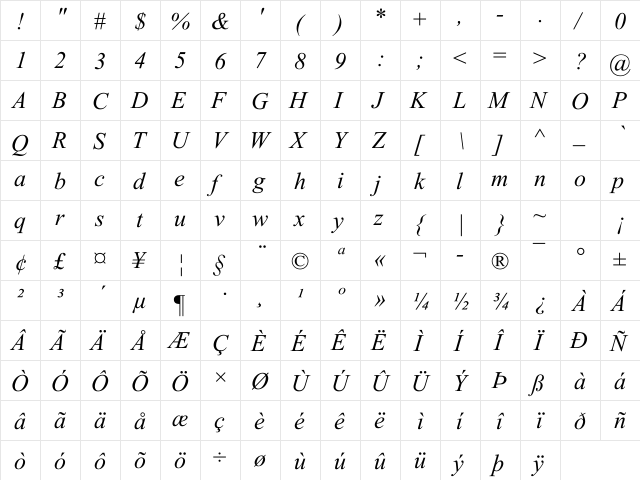
Dunford Italic Regular
Design Context for Dunford Italic Typeface
Dunford Italic takes a measured approach to typography — its balanced proportions and neutral character make it a reliable workhorse for both digital and print work. The slanted form adds forward momentum and visual energy.
Pro Tip: Try Dunford Italic for annotation and caption copy alongside an upright companion — the contrast in angle creates a dynamic but ordered typographic system.